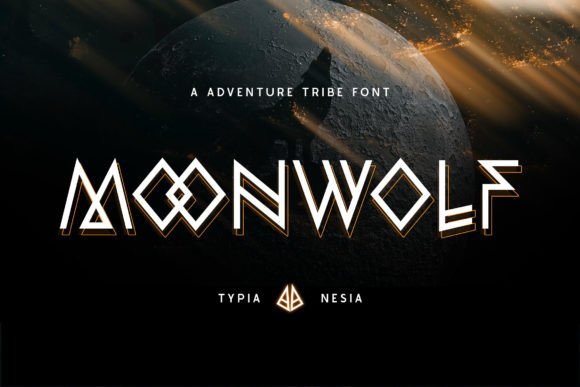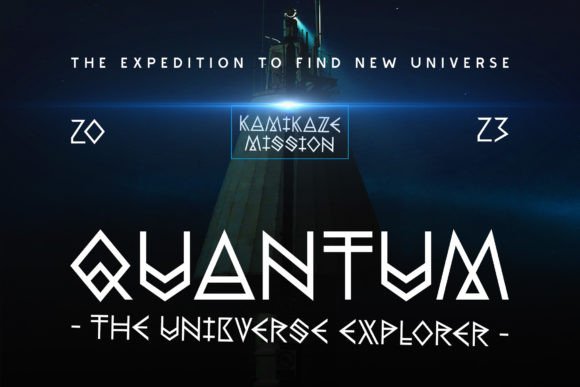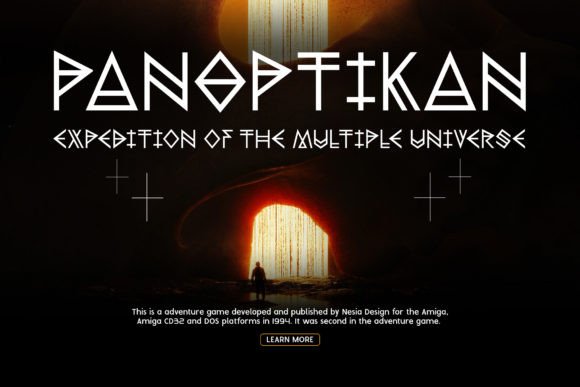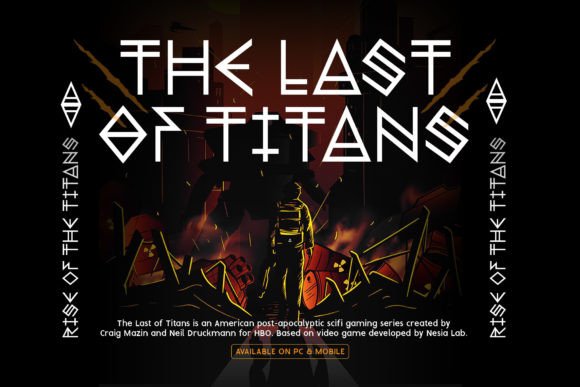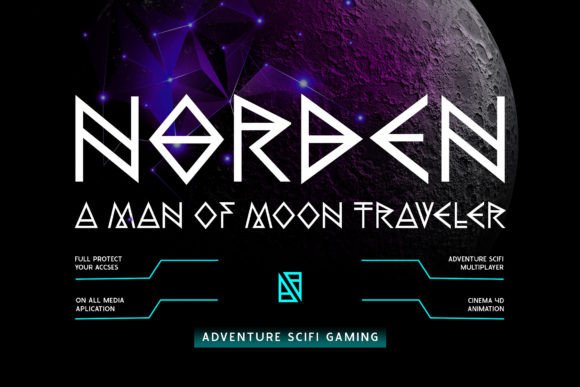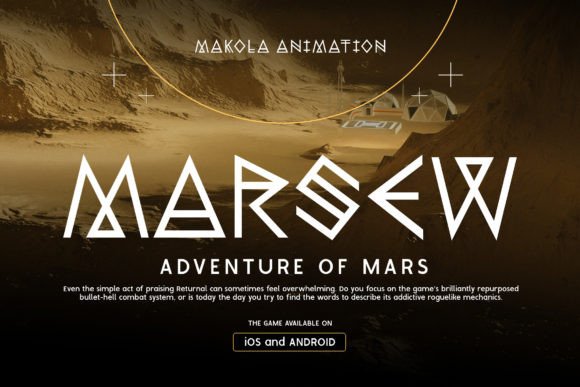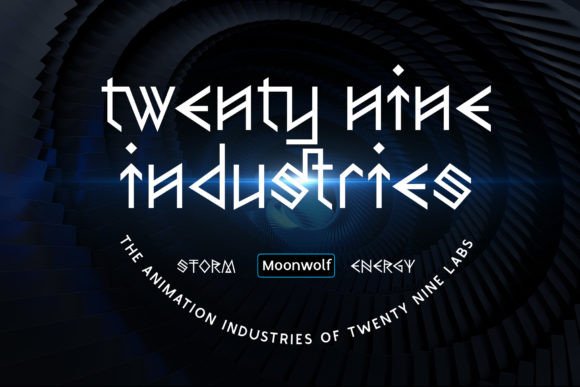
Moonwolf Font
Moonwolf is a bold and striking typeface that captures the essence of a highly advanced and mysterious space tribe. Its design is both futuristic and primal, with sharp edges and sleek lines that evoke a sense of power and strength.
The font features unique and intricate details that are inspired by the natural patterns found in the cosmos and the tribal markings of ancient civilizations. The letters are designed to flow together seamlessly, creating a sense of unity and harmony within the font.
Overall, this unique and powerful space-themed font is perfect for any project that needs a futuristic, tribal, or sci-fi vibe. With its sleek and edgy design, Moonwolf is sure to make a bold statement and capture the attention of your audience. So why wait? Get Moonwolf font today and elevate your designs to the next level!